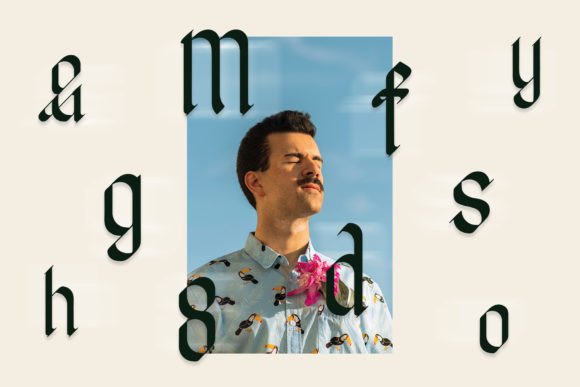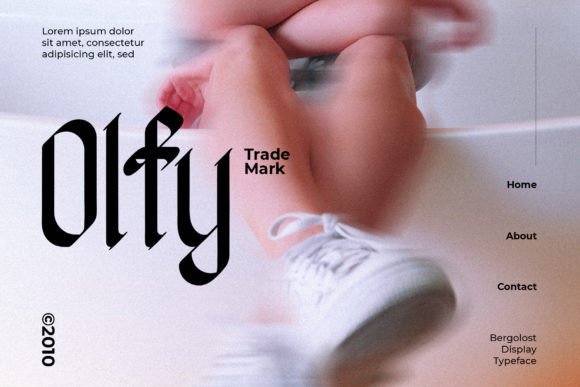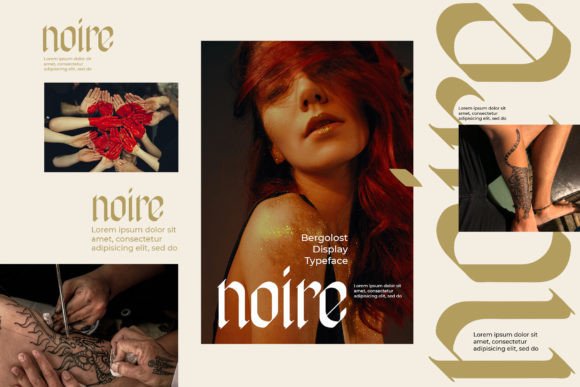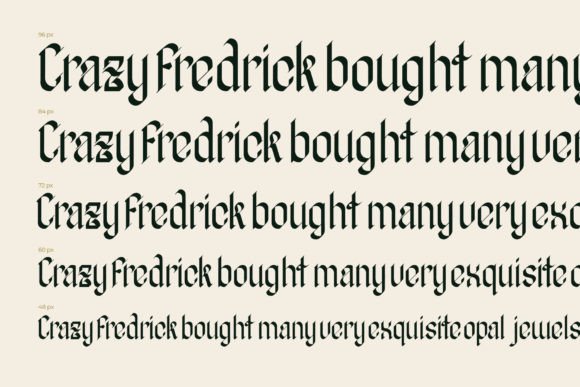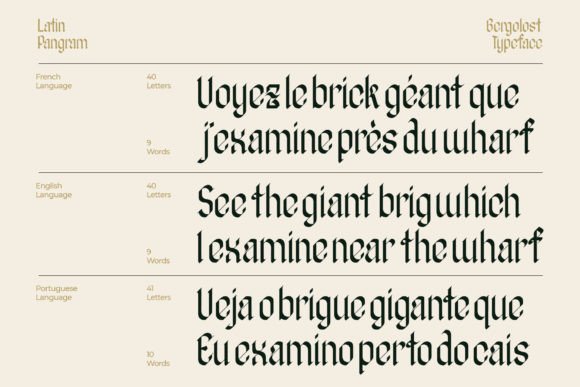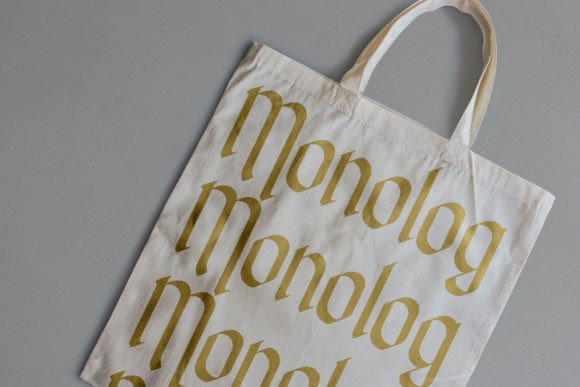
Bergolost Font: Elevate Your Crafting Ideas with a Cool Blackletter Style
Are you a designer, crafter, or DIY enthusiast looking for a unique and versatile font to take your projects to the next level? Look no further than Bergolost, a stunning blackletter font that’s perfect for adding a touch of elegance and sophistication to your creations. In this article, we’ll dive into the world of Bergolost, exploring its features, benefits, and uses, and show you how this amazing font can elevate your crafting ideas.
What is Bergolost Font?
Bergolost is a cool and detailed blackletter font that’s designed to add a touch of drama and flair to your projects. With its intricate details and classic style, this font is perfect for creating eye-catching cards, branding materials, labels, and more. Whether you’re a seasoned designer or a crafting newbie, Bergolost is an excellent choice for anyone looking to add some personality and style to their creations.
Key Features of Bergolost Font
- Unique Blackletter Style: Bergolost boasts a distinctive blackletter style that’s both elegant and edgy, making it perfect for a wide range of projects.
- Intricate Details: This font features intricate details that add depth and texture to your designs, making them stand out from the crowd.
- Versatile: Bergolost is incredibly versatile, and can be used for everything from cards and invitations to branding and labels.
Benefits of Using Bergolost Font
So why choose Bergolost over other fonts? Here are just a few benefits of using this amazing blackletter font:
- Adds Visual Interest: Bergolost adds a touch of drama and visual interest to your designs, making them more engaging and attention-grabbing.
- Elevates Your Brand: If you’re a business owner or marketer, Bergolost can help elevate your brand and make it more memorable.
- Increases Creativity: With Bergolost, you’ll have endless creative possibilities at your fingertips, allowing you to experiment and try new things.
- Time-Saving: This font is easy to use and customize, saving you time and effort in the design process.
Uses for Bergolost Font
Bergolost is an incredibly versatile font that can be used in a wide range of projects, including:
- Cards and Invitations: Add a touch of elegance and sophistication to your cards and invitations with Bergolost.
- Branding and Packaging: Use Bergolost to create eye-catching branding materials, such as labels, logos, and packaging.
- DIY Projects: Bergolost is perfect for DIY enthusiasts who want to add a personal touch to their crafting projects, such as scrapbooking, journaling, and more.
- Signage and Displays: This font is also great for creating eye-catching signage and displays for businesses, events, and more.
Tips for Using Bergolost Font
Here are a few tips for getting the most out of Bergolost:
- Experiment with Different Sizes: Bergolost looks great in a variety of sizes, so don’t be afraid to experiment and find the perfect fit for your project.
- Pair with Other Fonts: Try pairing Bergolost with other fonts to create a unique and eye-catching combination.
- Use in Combination with Images: Bergolost looks great in combination with images, so try incorporating it into your designs to add an extra layer of interest.